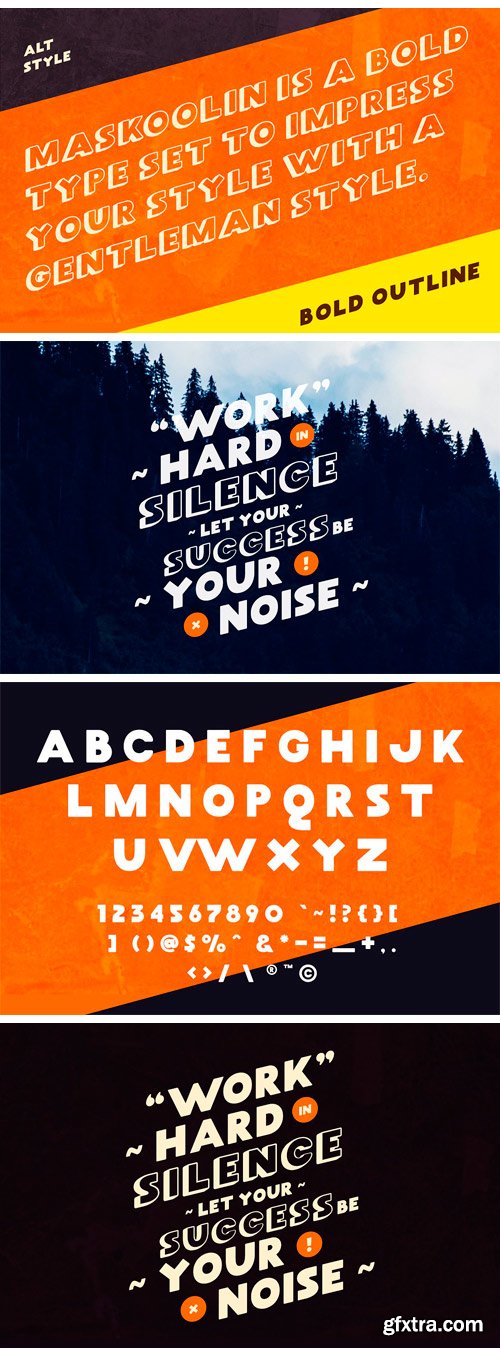
CM - Maskoolin - Bold Typeface 781477
MASKOOLIN - A bold type set to impress your eyes with the gentleman styles. Inspired by a vintage era or 90's look, which adds more personality to your work. In the download you get 2 fonts. A regular face and an alternative style which look great in either all caps or lowercase. Combining all these styles can generate many different typographic layouts for packing, book covers or just quotes to post to your social media.